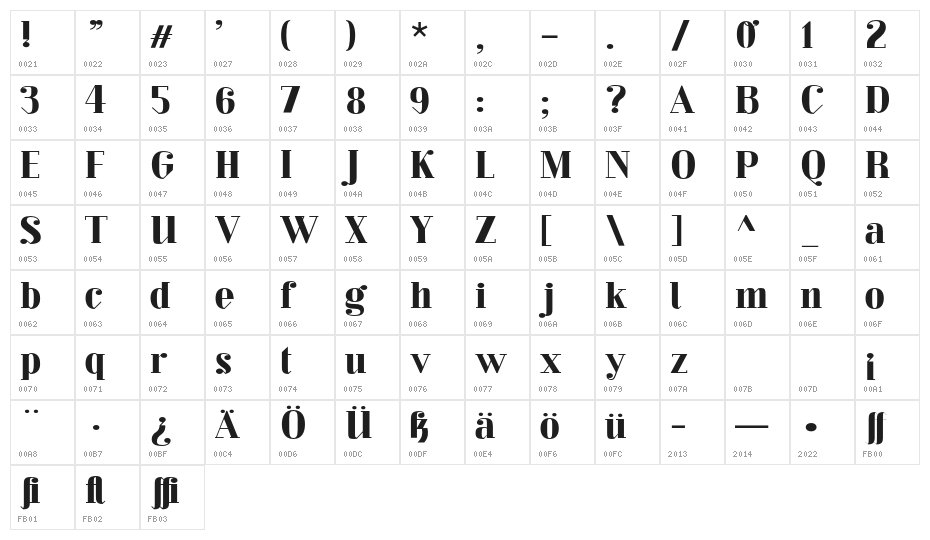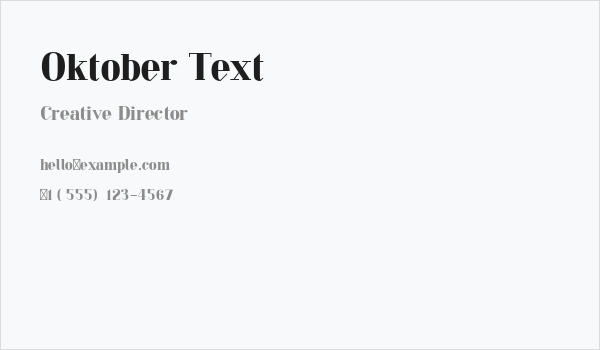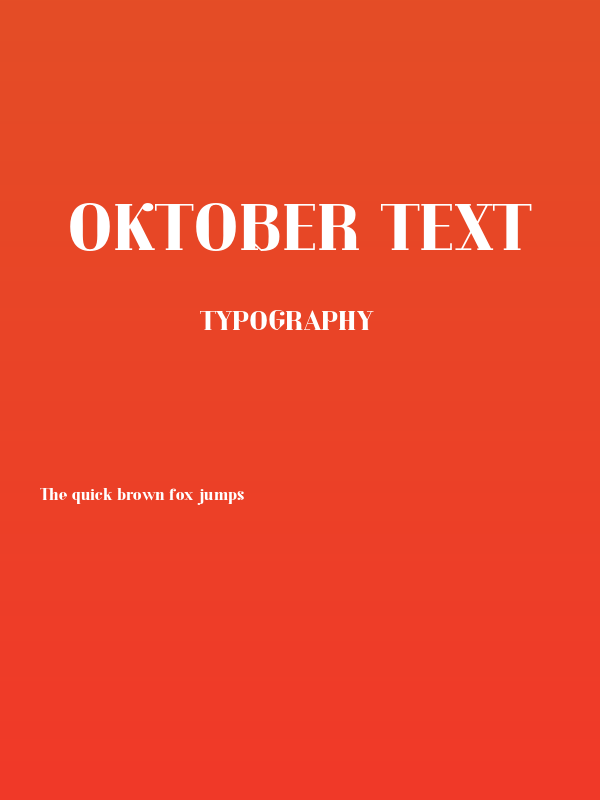
Oktober Text Font
Oktober Text Description
This font features a bold and striking design with high contrast between thick and thin strokes, giving it a dramatic and elegant appearance. The serifs are pronounced and add a touch of sophistication, while the overall structure maintains a sense of modernity. The uppercase letters are tall and commanding, while the lowercase letters offer a balanced and harmonious look. The numerals are consistent with the font's bold style, ensuring readability and impact. Special characters are designed with the same attention to detail, making this font versatile for various applications.
| Proposed Projects | Ideal for headlines, branding, editorial design, and luxury product packaging. |